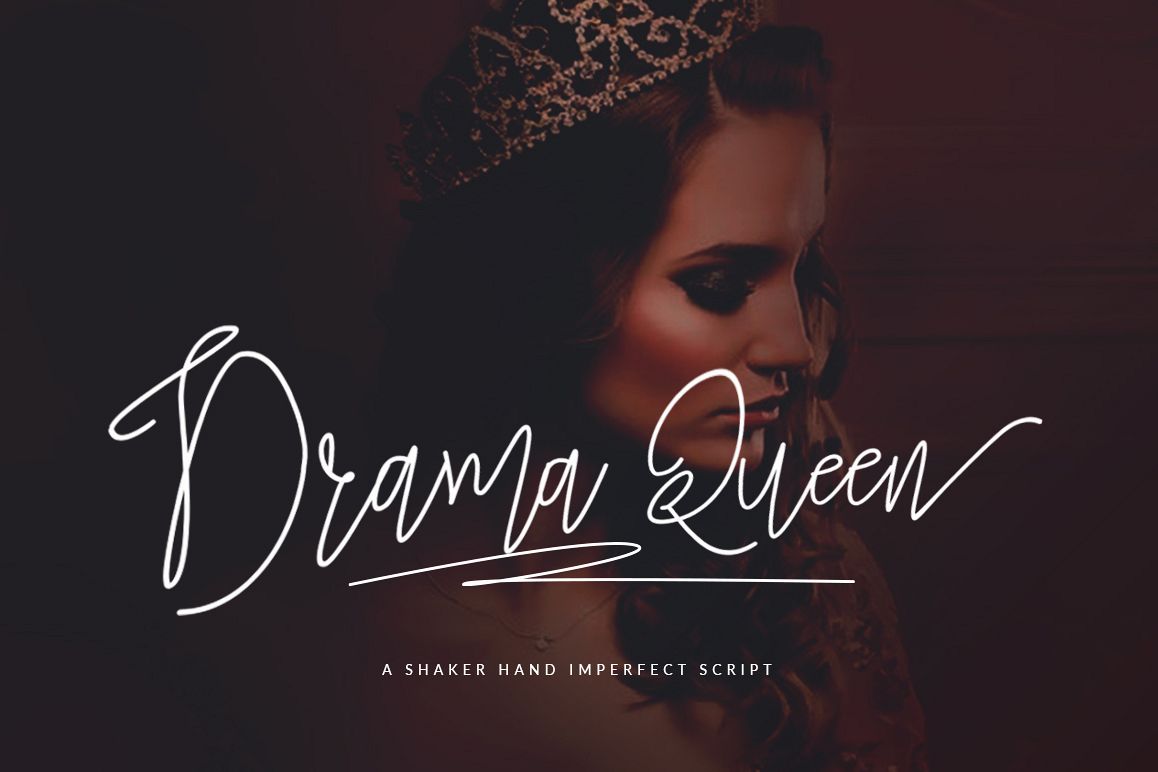
Drama Queen Script
Drama Queen Script A clean & classy signature-style font set, perfect for creating authentic hand-lettered text quickly & easily. with smooth monoline script , playful curvature and delightful end swashes. Files Include: